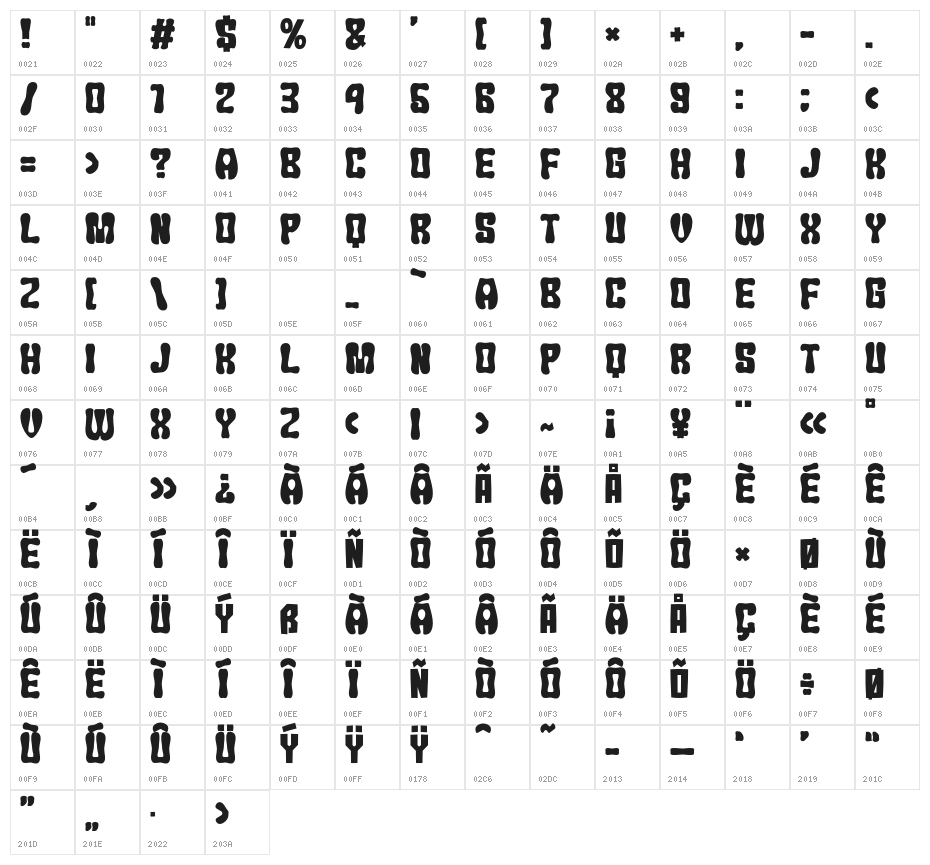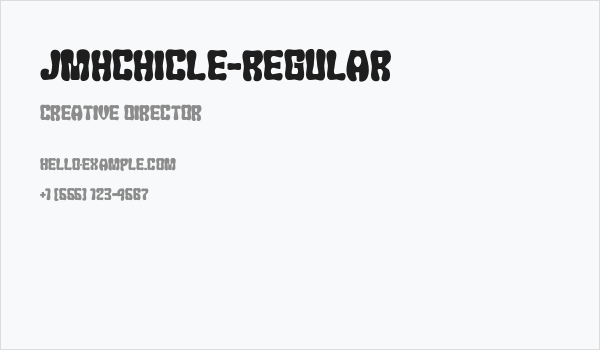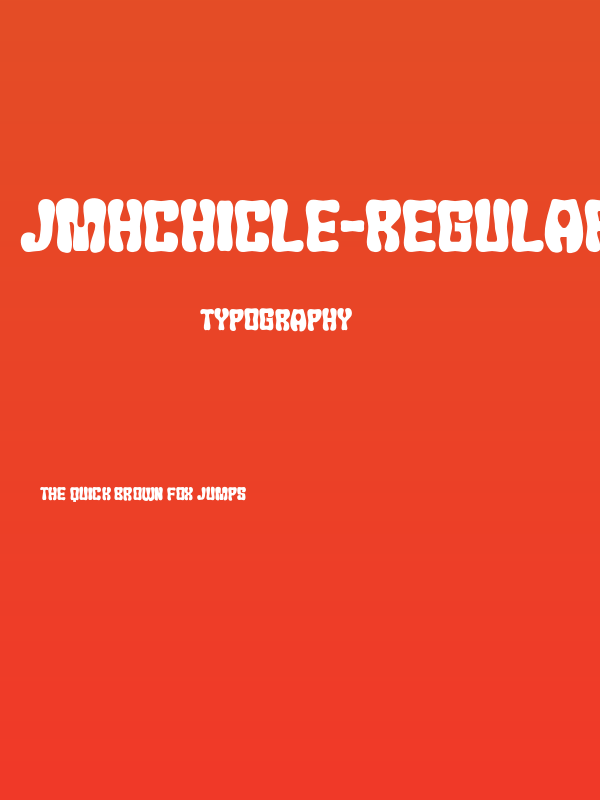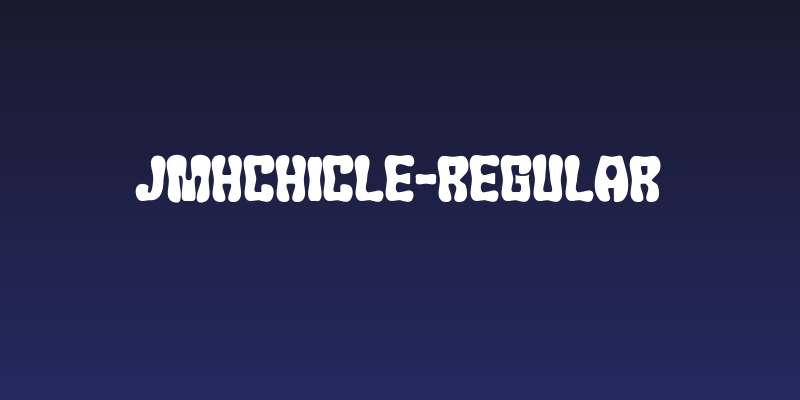
JMHChicle-Regular Font
JMHChicle-Regular Description
This font features a bold and playful design with thick, rounded strokes that give it a bubbly and cartoonish appearance. The characters are highly stylized, with a unique, almost hand-drawn quality that adds a sense of whimsy and fun. The uppercase and lowercase letters maintain a consistent weight, contributing to a cohesive look. The numbers and special characters follow the same playful style, making this font suitable for creative and informal applications. Its distinctive appearance makes it stand out, perfect for projects that require a touch of humor and lightheartedness.
| Overall Style | Playful, Cartoonish |
| Proposed Projects | Ideal for children's books, comic strips, playful branding, and party invitations. |